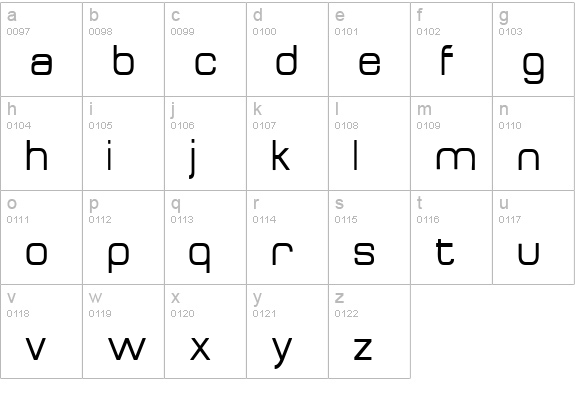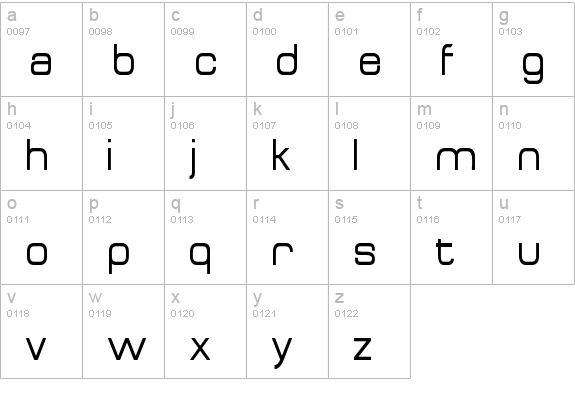
Acens Font Details
Acens font is a modern and elegant typeface that exudes sophistication and style. With its clean lines and versatile design, Acens is perfect for a wide range of projects, from branding and advertising to editorial and web design. This font offers a timeless and classic look that will elevate any project it is used in. What makes Acens font even more appealing is that it is available for free download at FontsMarket.com. This means that you can easily access this beautiful font without any cost, making it a valuable addition to your font collection. Whether you are a designer looking to enhance your projects or a business owner seeking a professional and polished look, Acens font is sure to impress with its sleek and stylish appearance. Download Acens font today and elevate your designs with this stunning typeface.